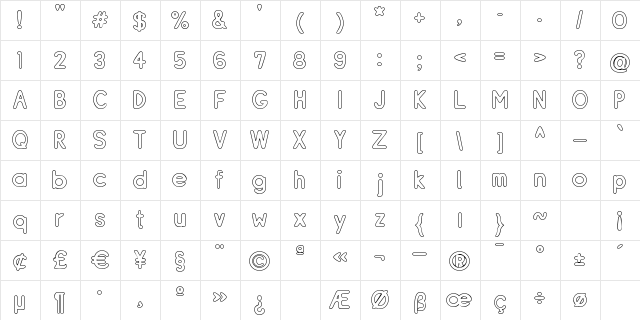
ReSiple BoldOutline
Design Context for ReSiple Typeface
ReSiple brings ornamental detail and strong personality to headlines and identities, where visual impact matters more than quiet functionality. The heavy weight commands attention and anchors typographic hierarchies.
Font Pairing: Pair with a clean neutral sans-serif for body copy to let ReSiple's character lead without overwhelming the composition.
Pro Tip: Use ReSiple exclusively at display sizes — it was designed to be seen, not read at length. Let a neutral companion handle body copy.